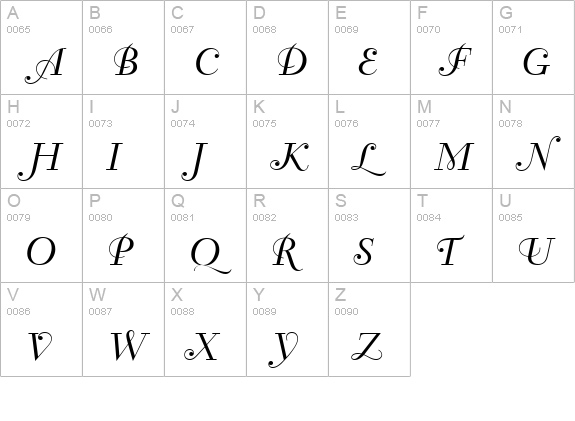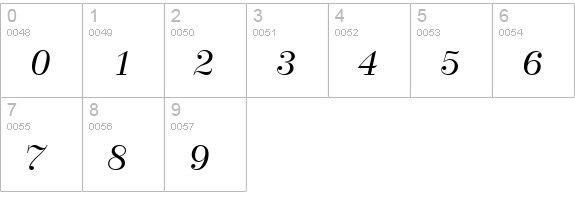
Introducing Splendid font, a truly elegant and versatile typeface that exudes sophistication and charm. With its graceful curves and stylish flourishes, Splendid font is perfect for adding a touch of class to your design projects. Whether you're creating invitations, branding materials, or editorial layouts, this font will surely elevate your work to the next level. And the best part? Splendid font is completely free to download at FontsMarket.com. Yes, you read that right - you can easily access this stunning font at no cost, making it accessible to all designers looking to enhance their creative endeavors. So why wait? Elevate your designs with Splendid font today and let your creativity shine!